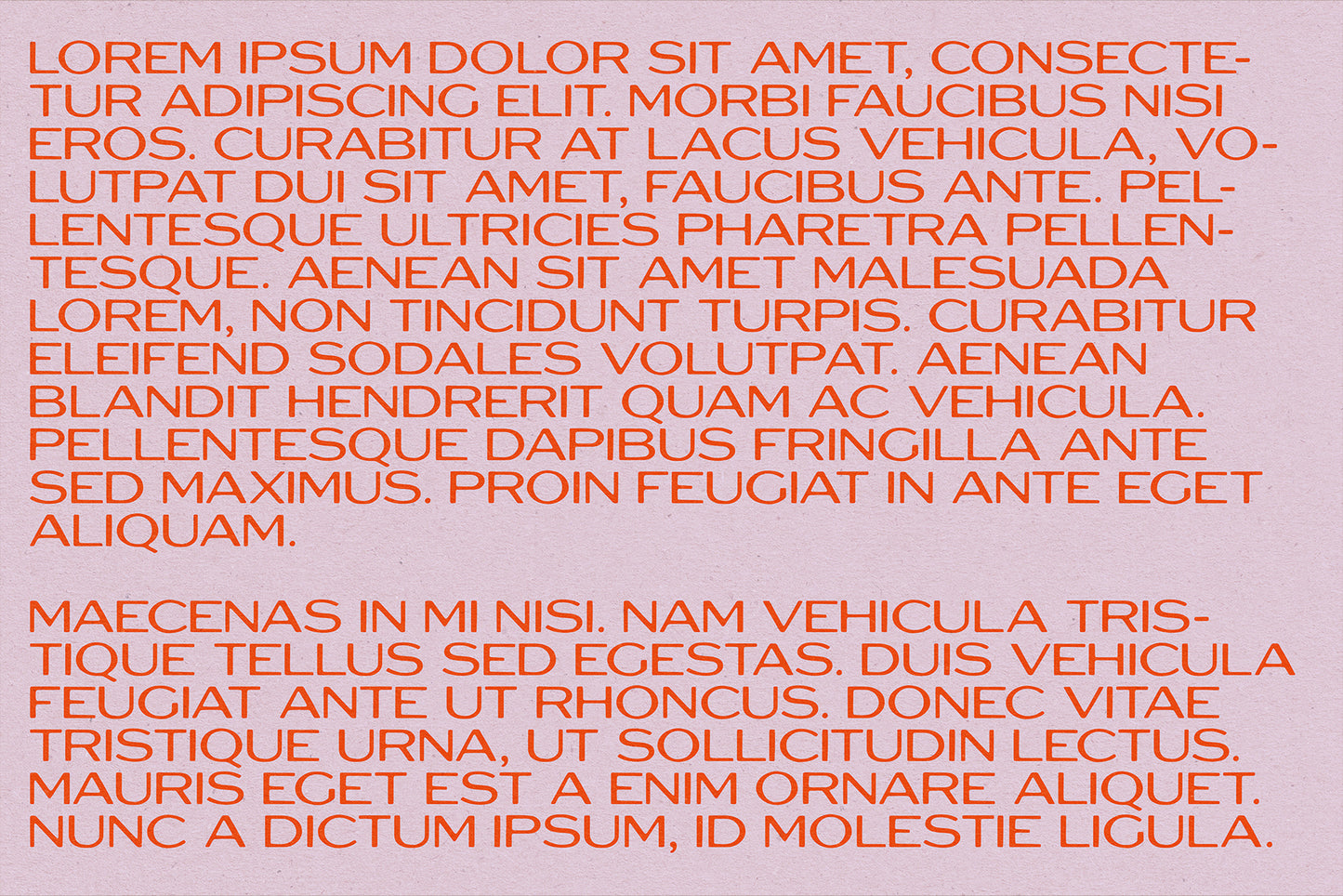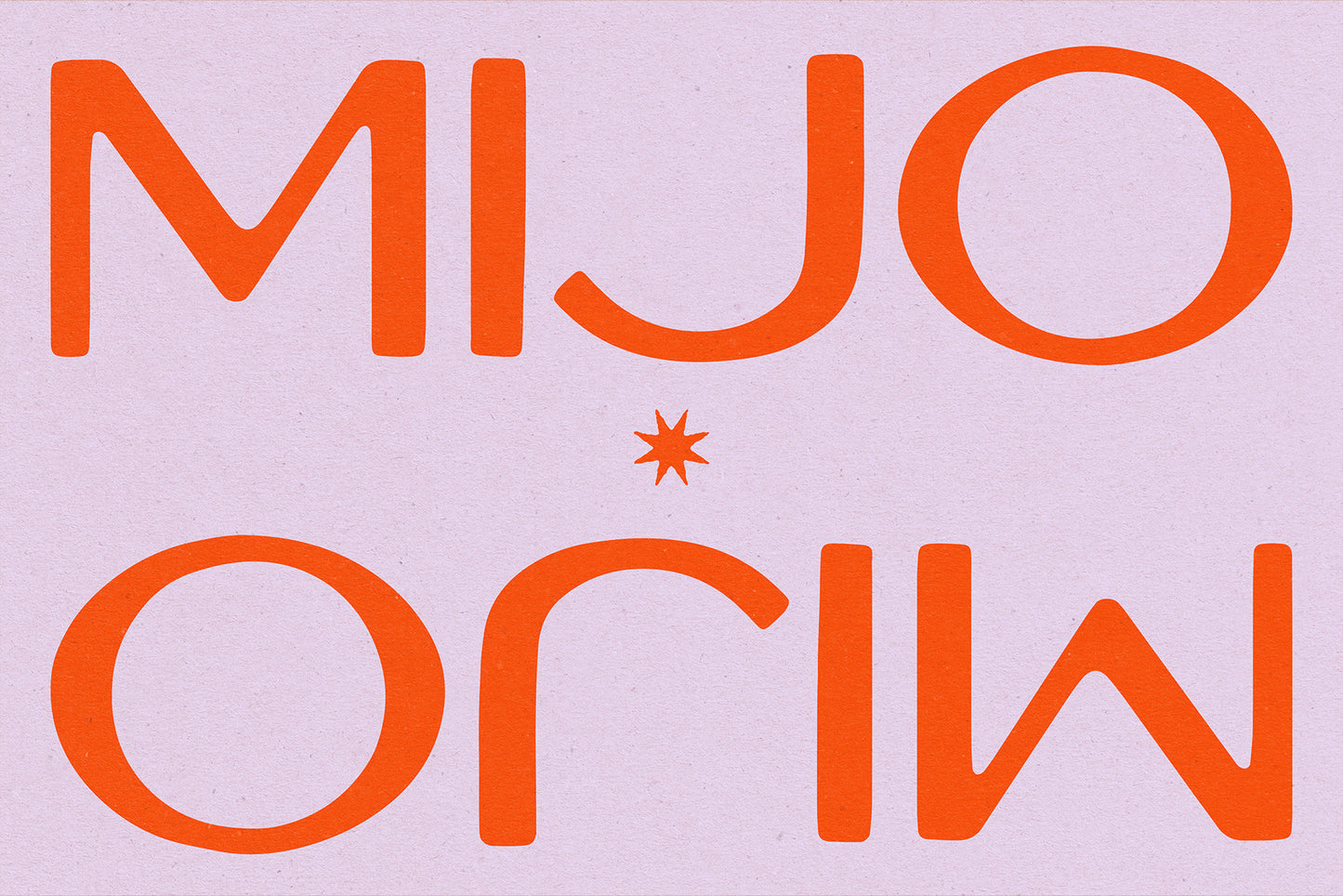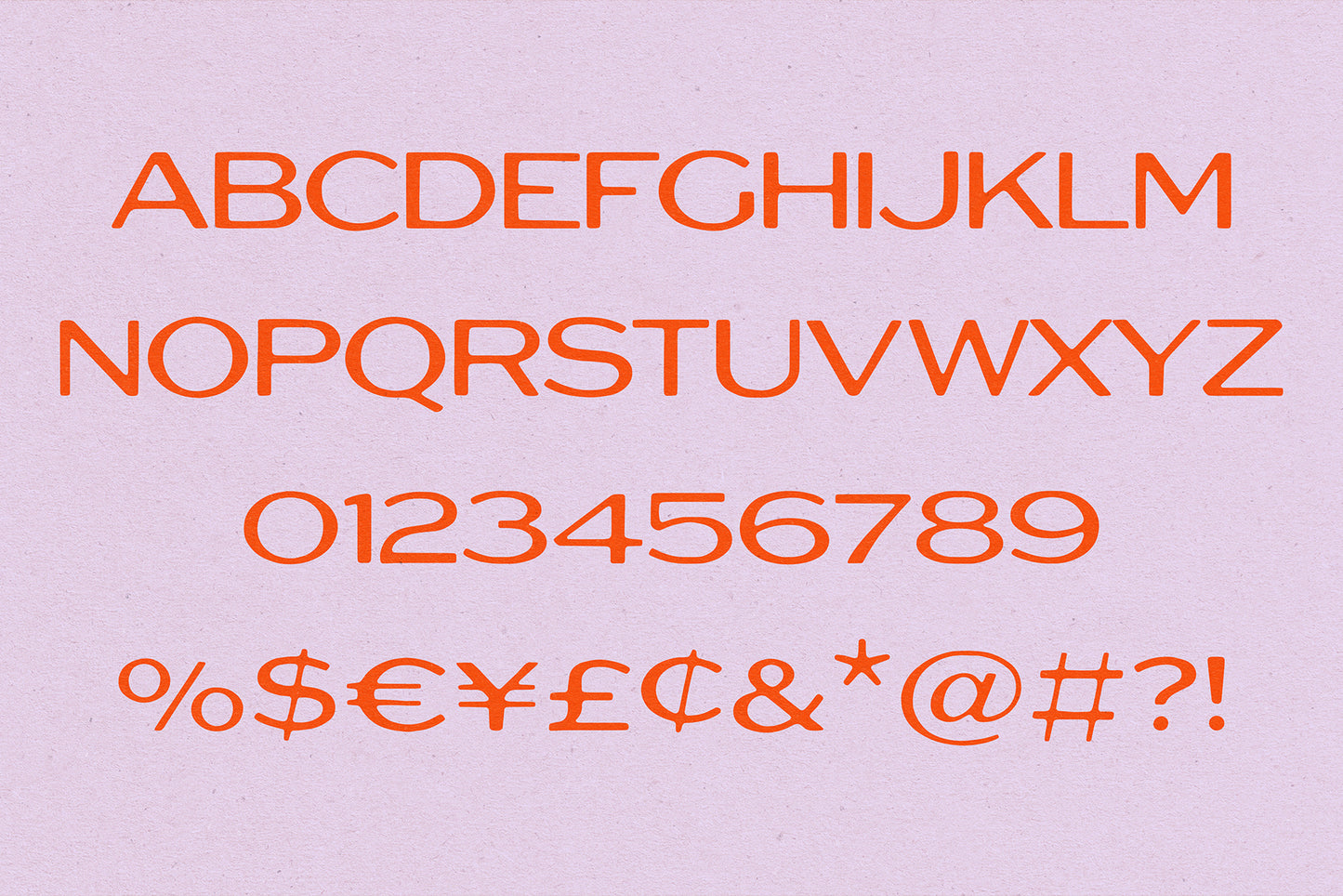
Mijo Typeface
With Mijo I wanted to create an elegant, lightweight font that has softer edges and a slight bleed where normally you would find crisp angles in fonts of this style. The square proportions and slight contrast give the typeface a nice balanced feel, and make it work for a wide range of projects and styles.
Includes multiple language characters and punctuation.